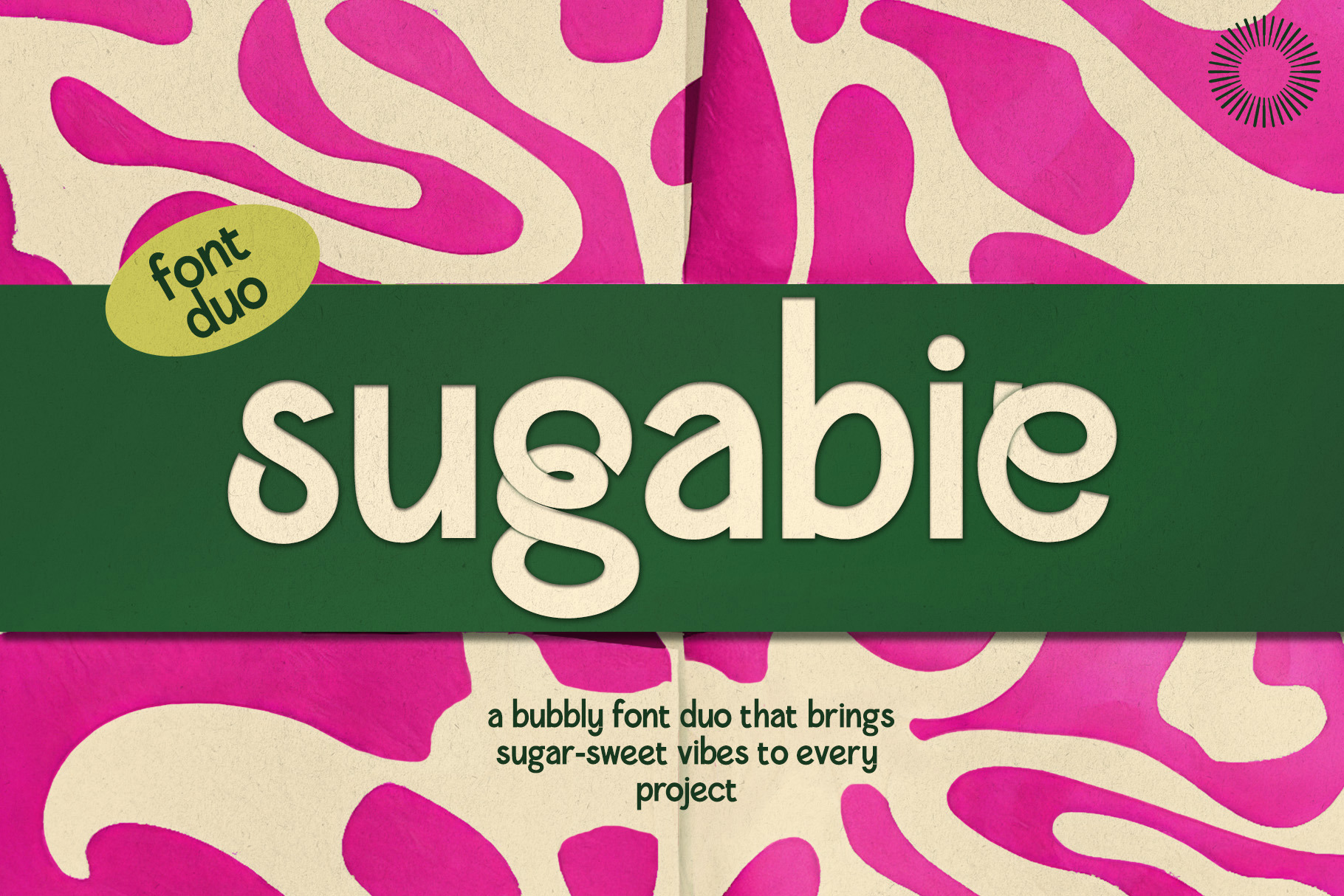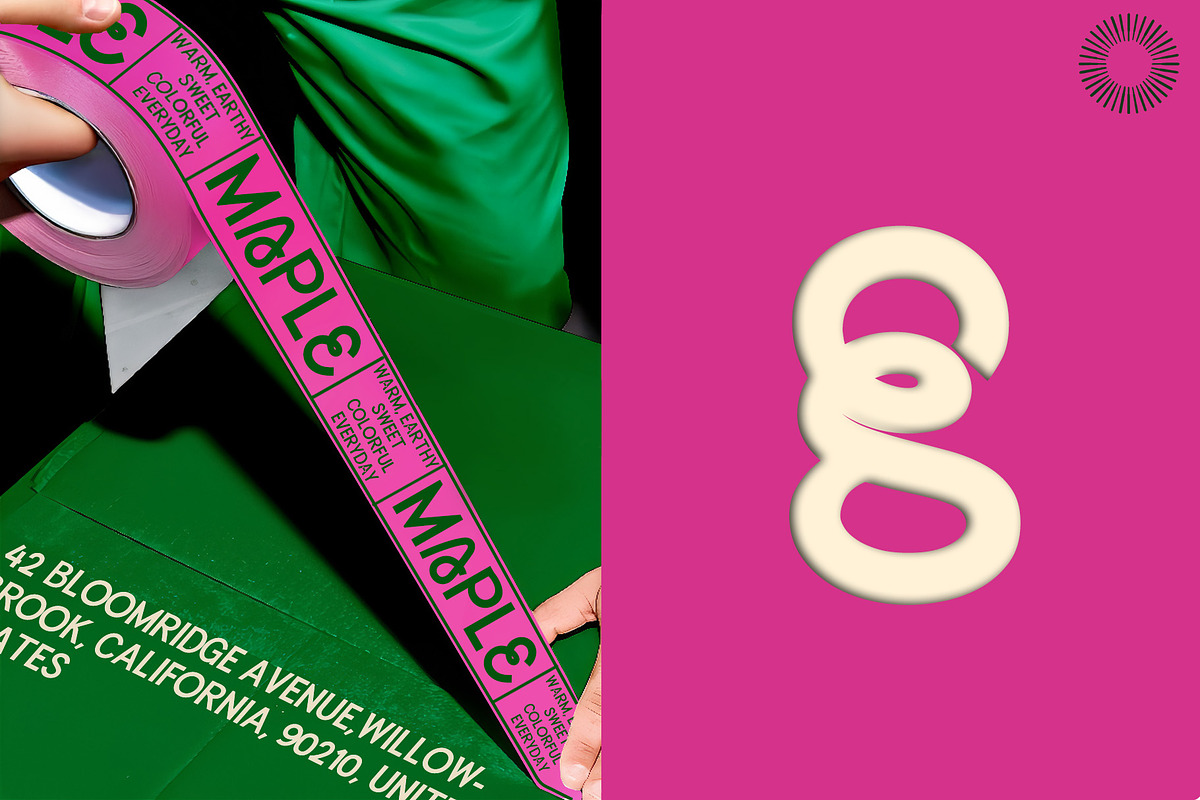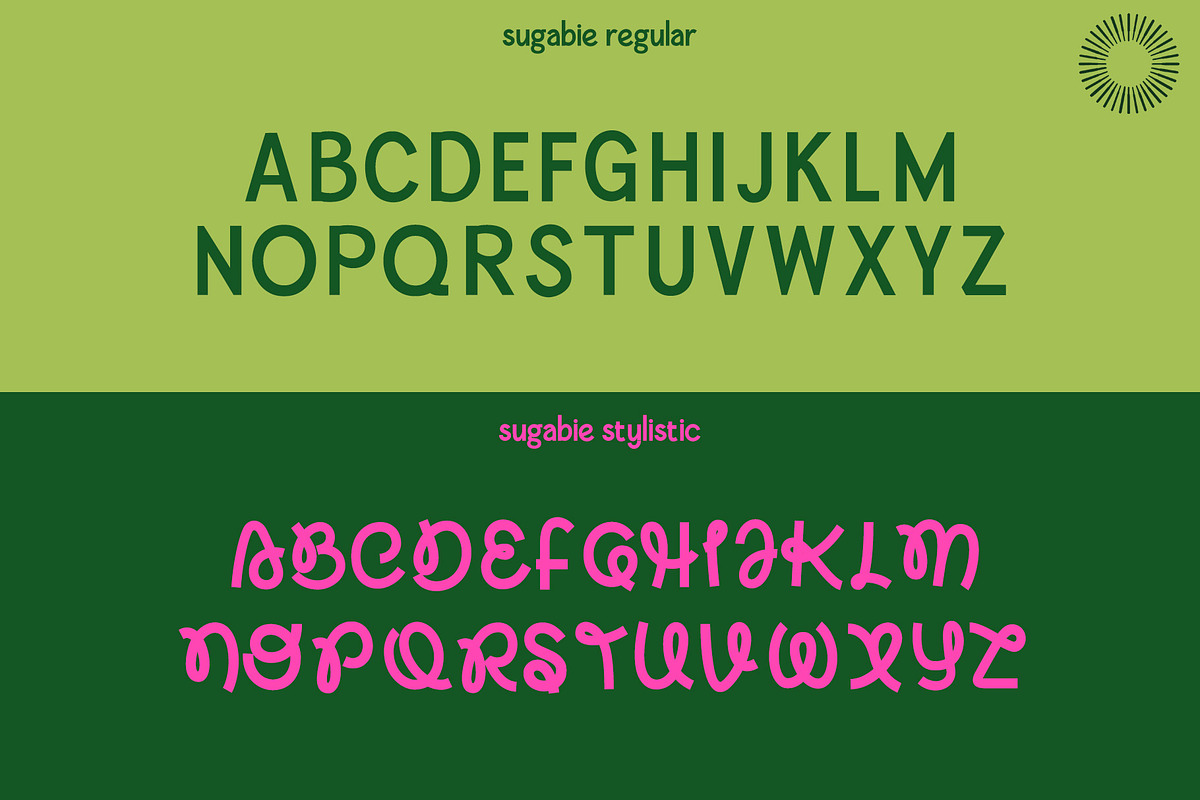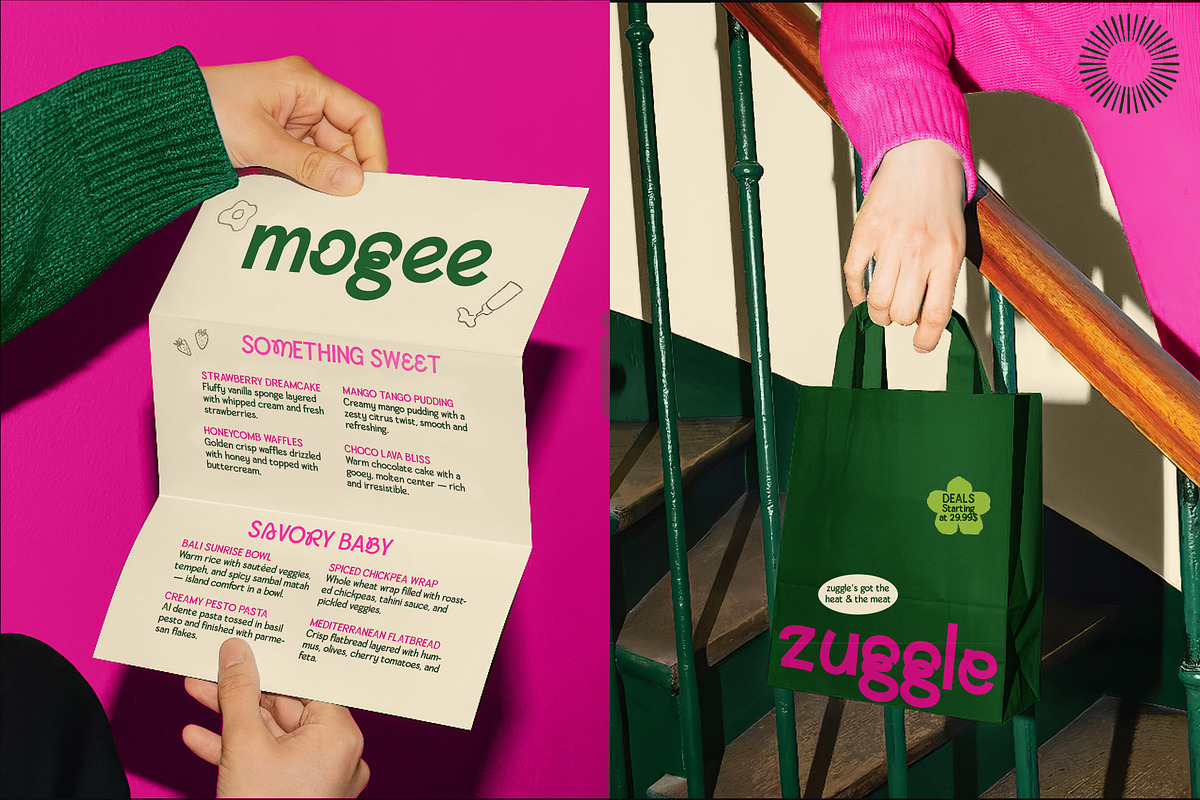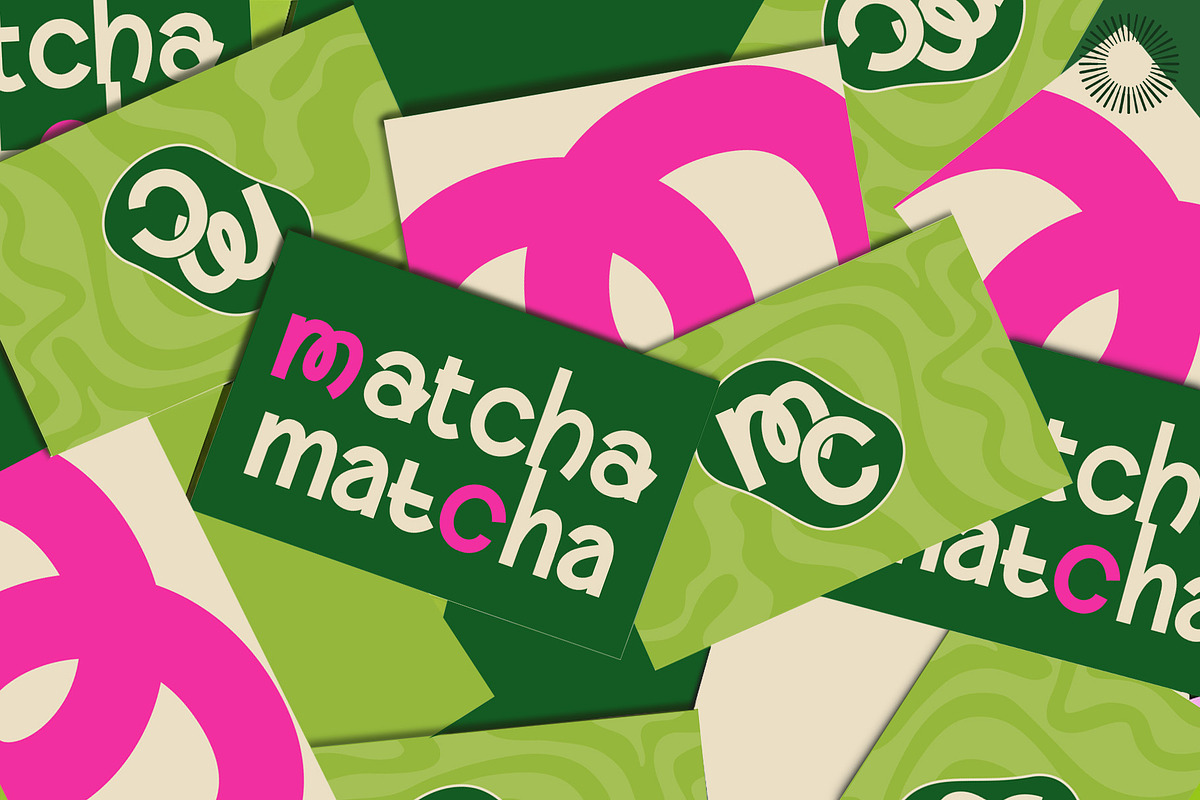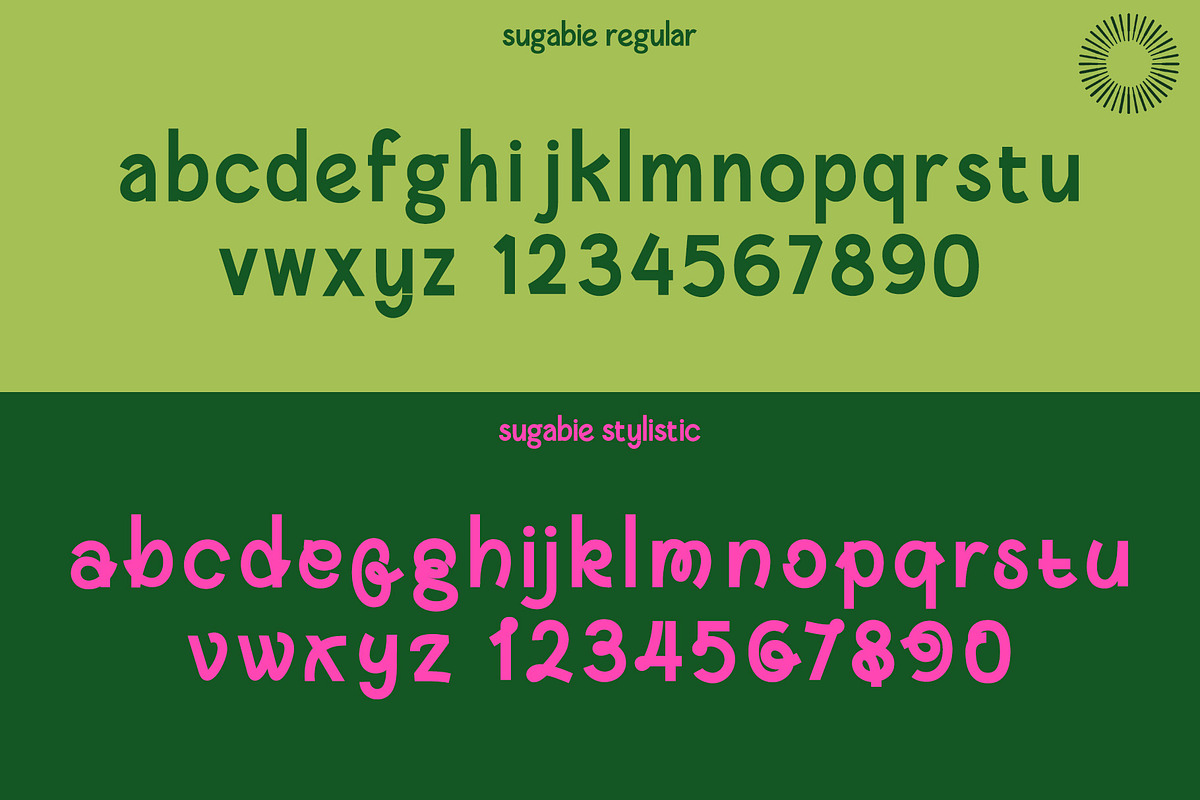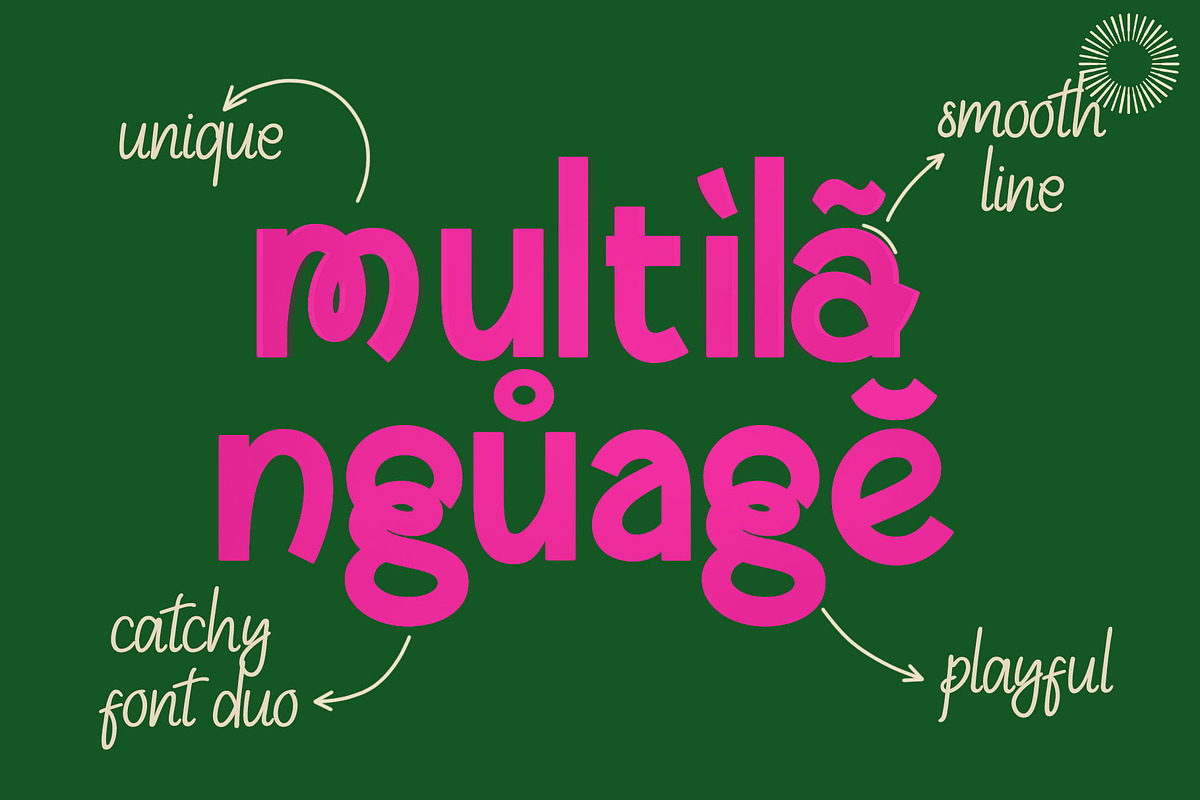
Sugabie - Sweet font duo
Sugabie is where sweetness meets style.This font duo is full of soft curves and bouncy rhythm, designed to bring a cheerful tone to your creative work. Think cotton candy, giggles, and sunshine — Sugabie is made for projects that want to feel friendly, light, and oh-so-lovable.